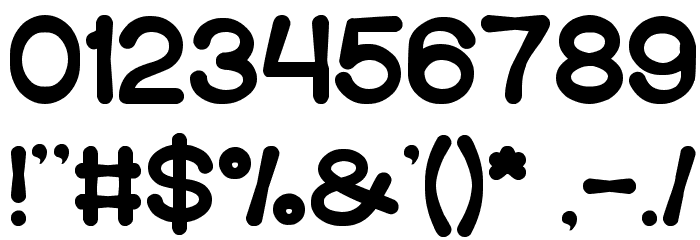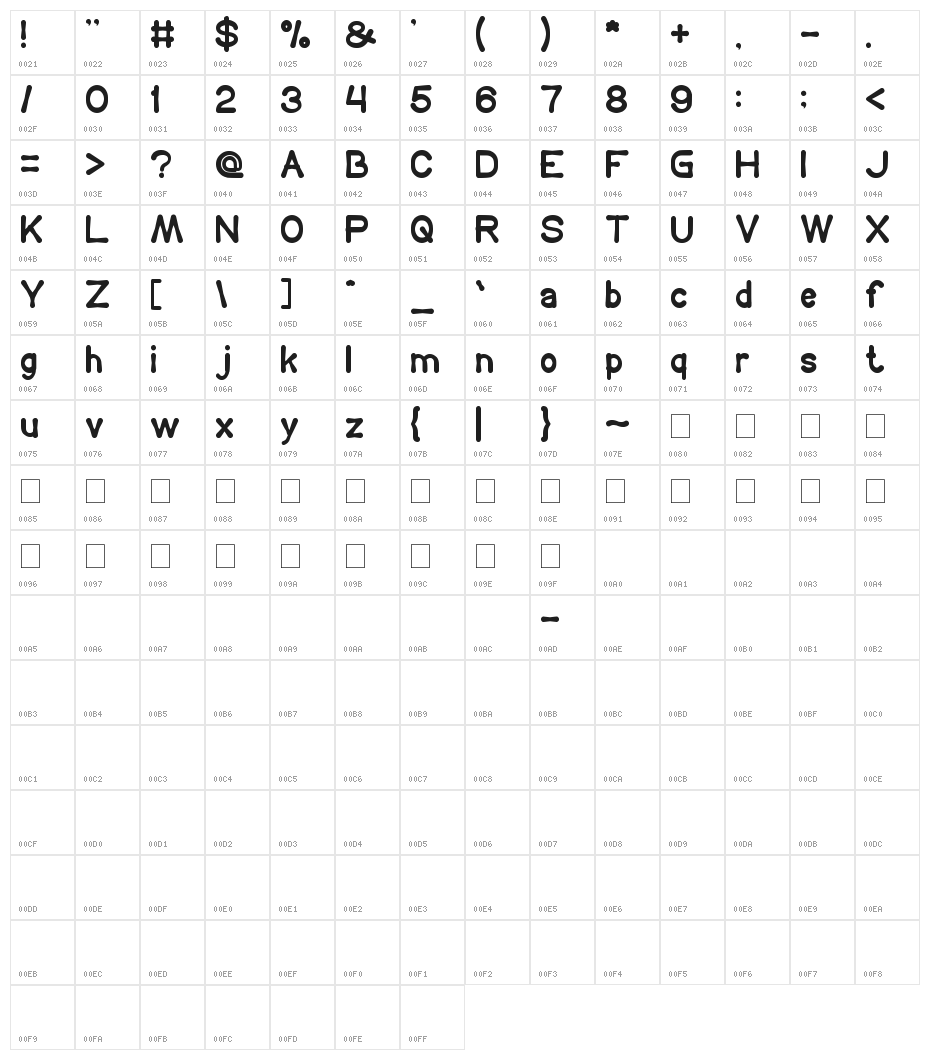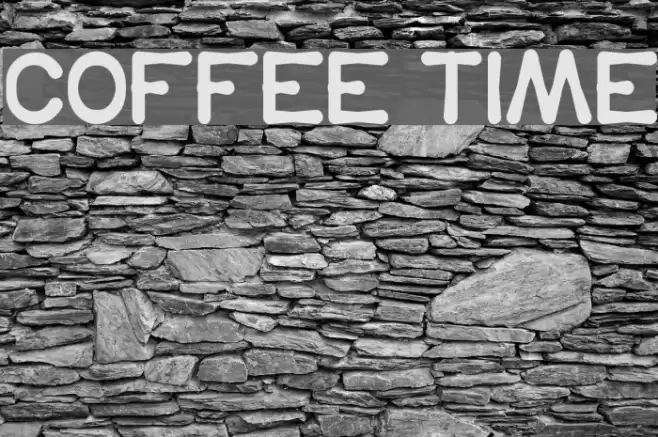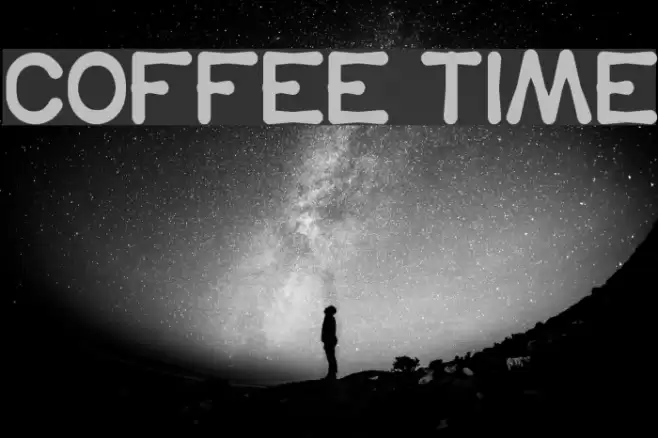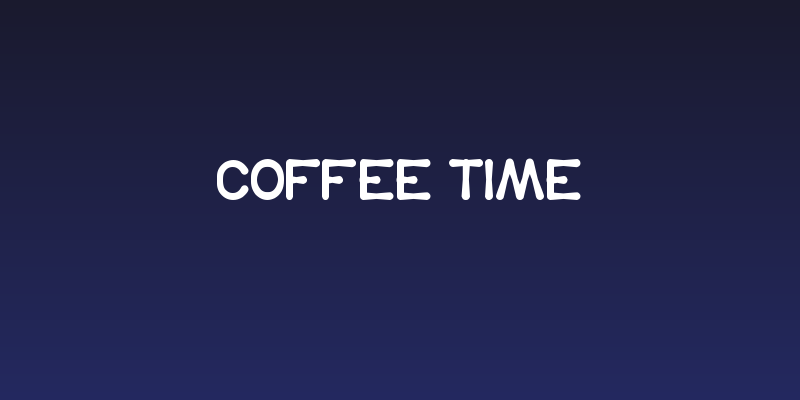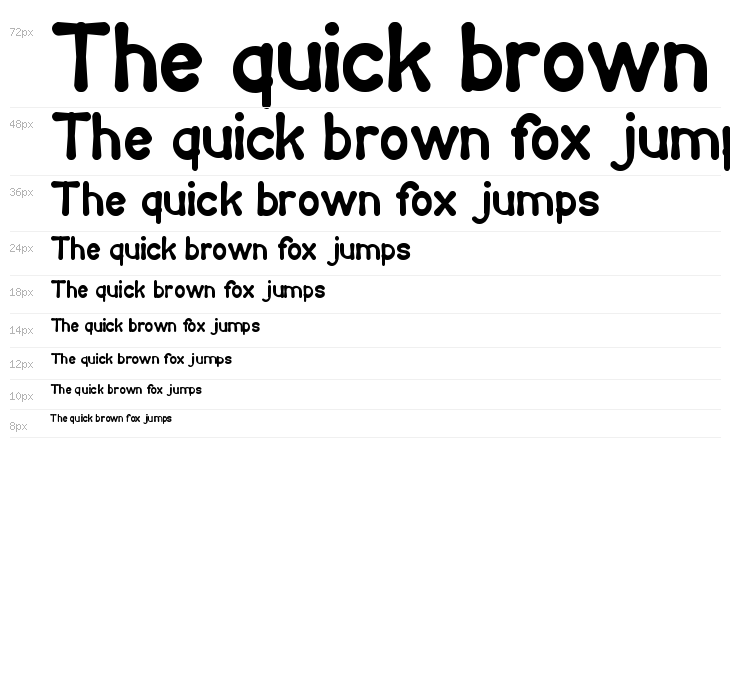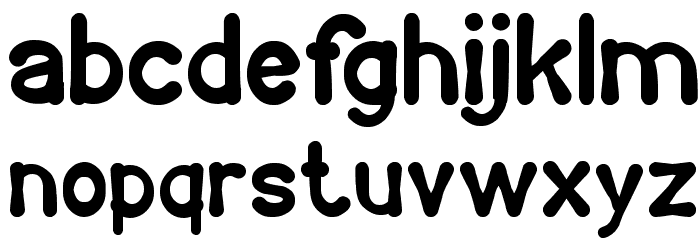
COFFEE TIME Font
COFFEE TIME Description
This playful and rounded font features a bold and friendly appearance, with each character exhibiting a slightly irregular, hand-drawn quality. The letters are thick and have a consistent stroke width, contributing to a cohesive and approachable look. The rounded edges and soft curves give it a warm and inviting feel, making it ideal for casual and informal designs. The font maintains a uniform height across both uppercase and lowercase letters, ensuring readability and balance. Its whimsical style is perfect for projects that require a touch of fun and creativity.
| Proposed Projects | Ideal for children's books, playful branding, casual invitations, and creative posters. |